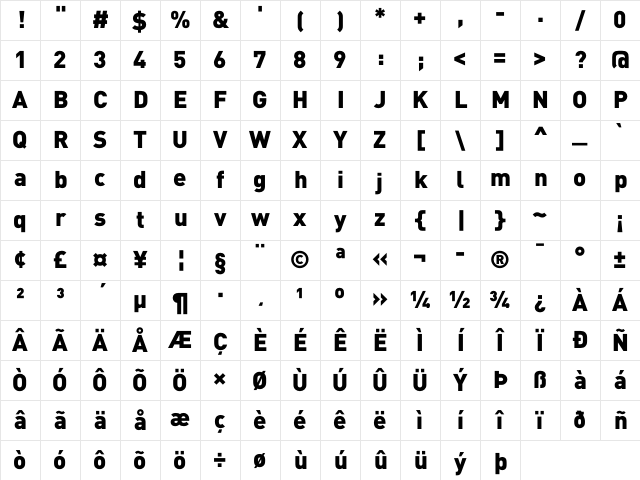
DINPro Regular
Foundry: FSI Fonts und Software GmbH
Designer: Albert-Jan Pool
Design Context for DINPro
DINPro is a composed and adaptable typeface that performs quietly and consistently across a wide range of design contexts.